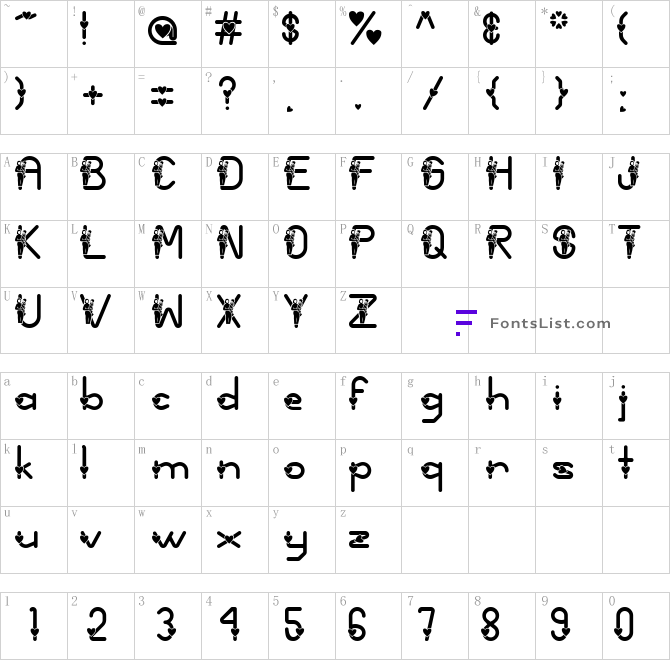
- Font Name:AC3-Mother'sLove
AC3-Mother-sLove.ttf is a very beautiful artistic font, AC3-Mother-sLove.ttf is widely used in the design and printing of various books and pictures,AC3-Mother-sLove.ttf has a strong visual impact,AC3-Mother-sLove.ttf is a commonly used font in newspapers, magazines and books, and is used in posters, e-commerce Poster design, store design, logo design, font design and other fields.AC3-Mother-sLove.